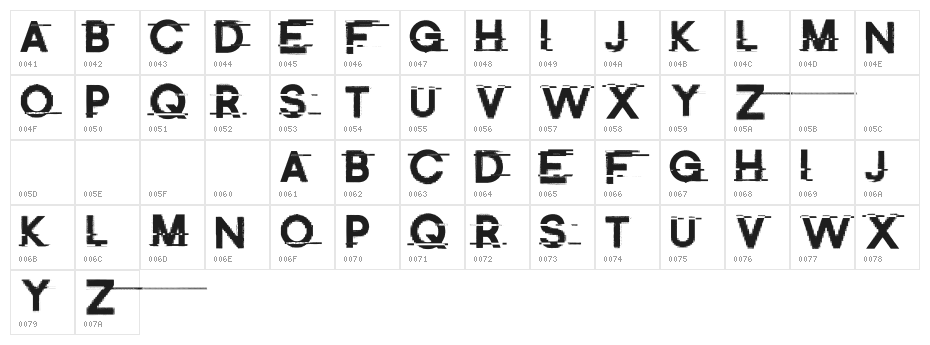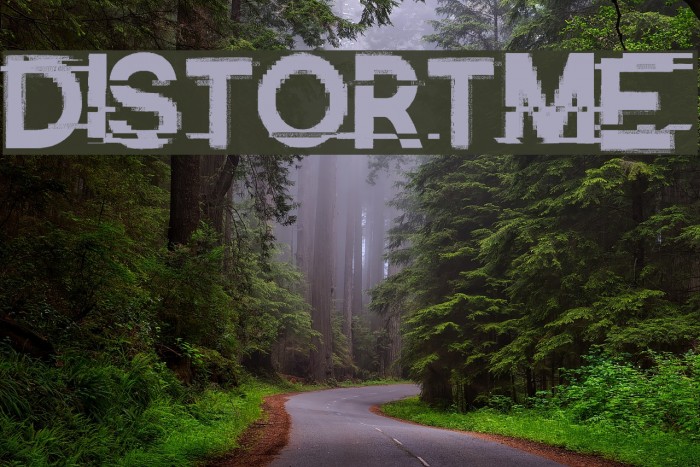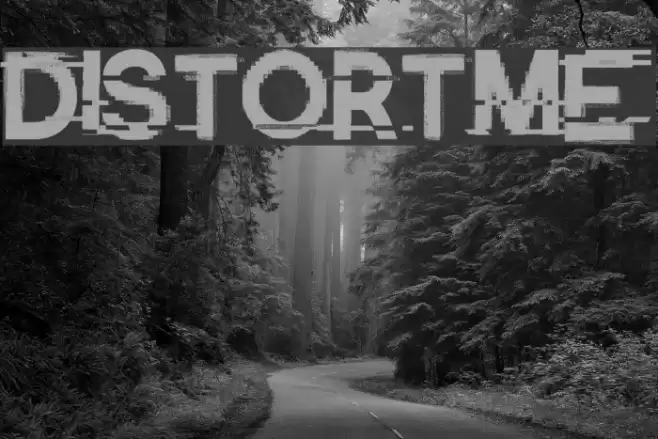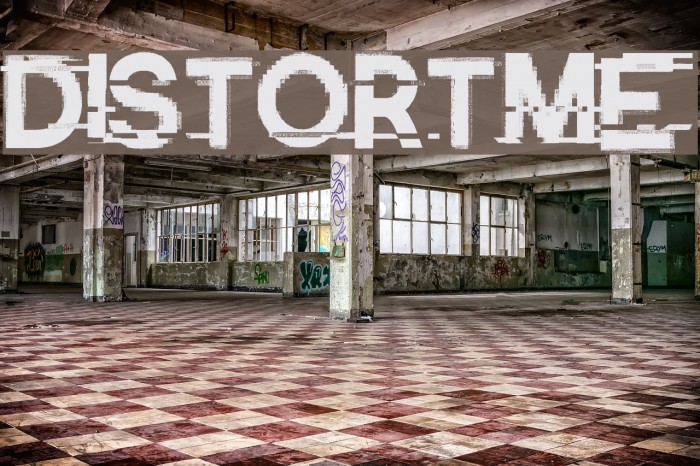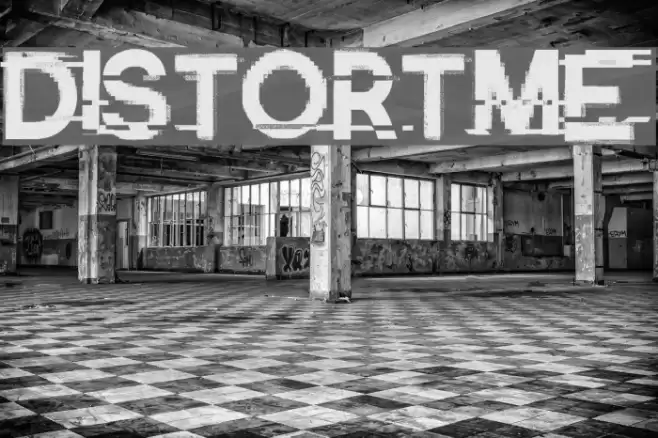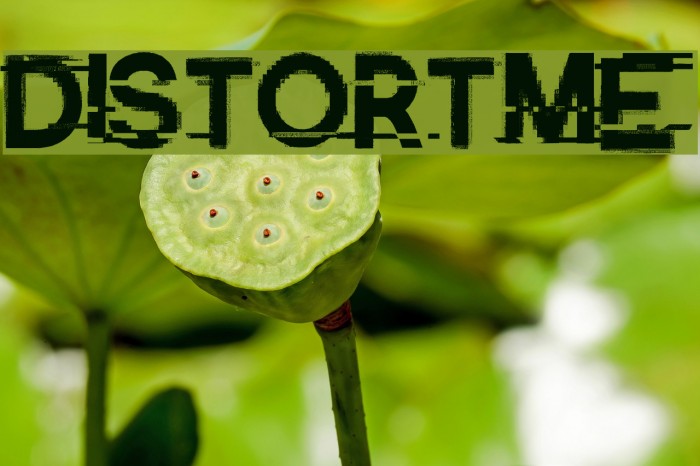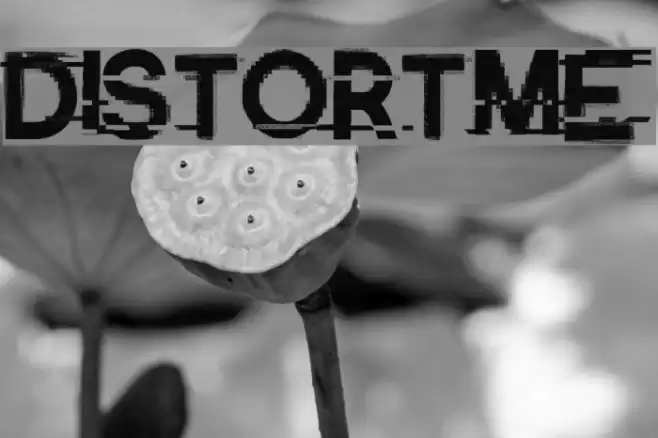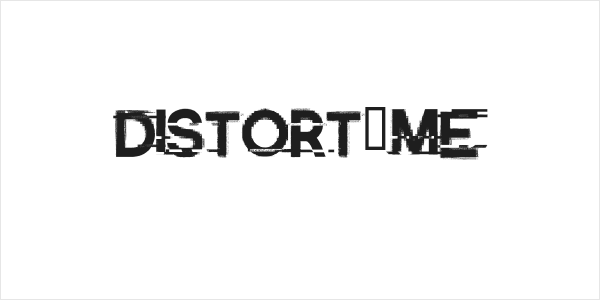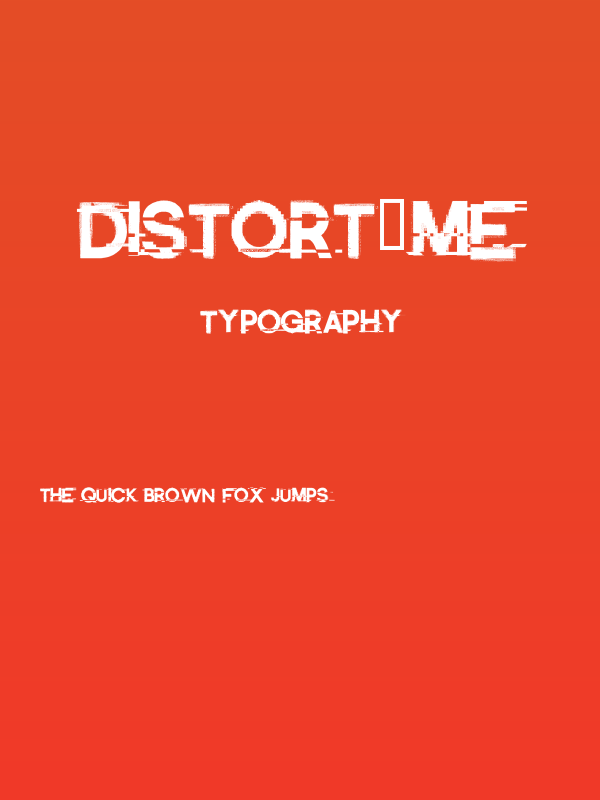
Distort-Me Font
Distort-Me Description
This font features a bold and distorted style, characterized by a glitch effect that disrupts the clean lines of the letters. The uppercase letters are prominent, with a strong presence that is enhanced by the distortion, creating a sense of movement and chaos. The font lacks lowercase letters and numbers, focusing instead on a unique visual impact. The special characters are also absent, emphasizing the font's decorative and artistic nature. This design is ideal for projects that require a modern and edgy aesthetic, capturing attention with its unconventional appearance.
| Proposed Projects | Perfect for album covers, posters, digital art, and branding that seeks a modern, edgy look. |